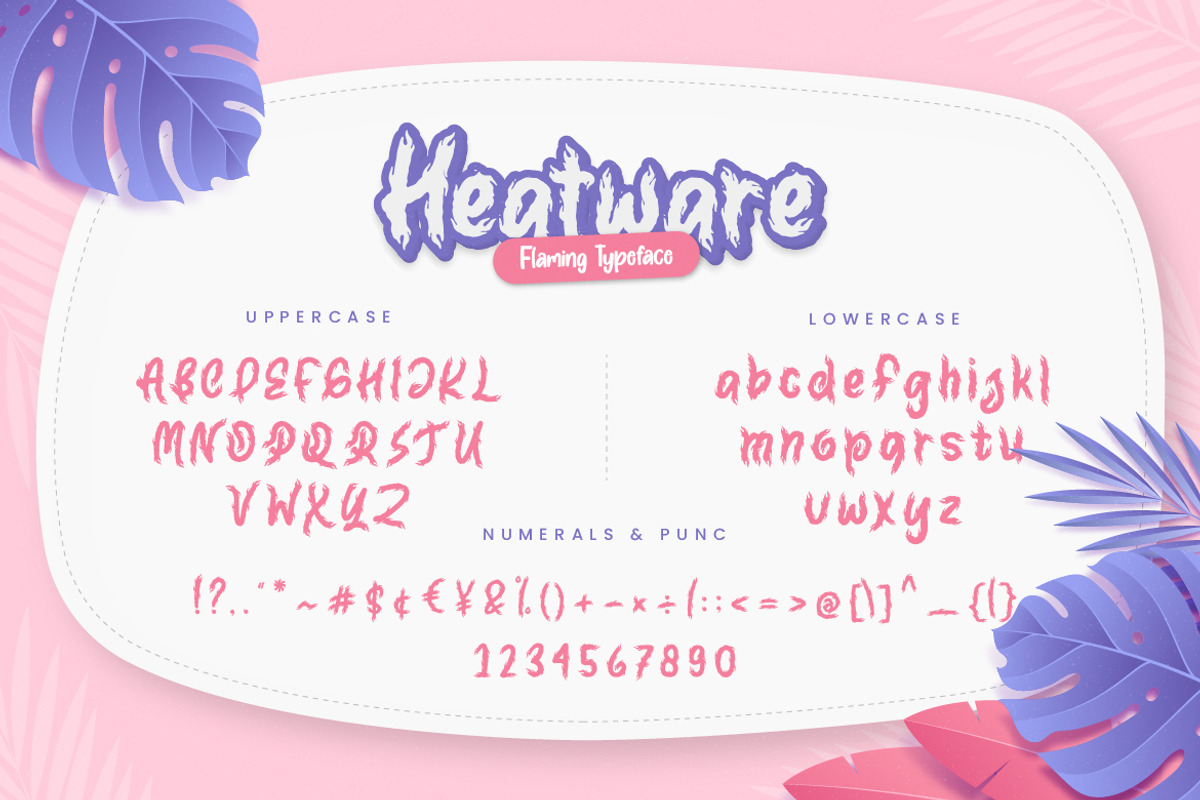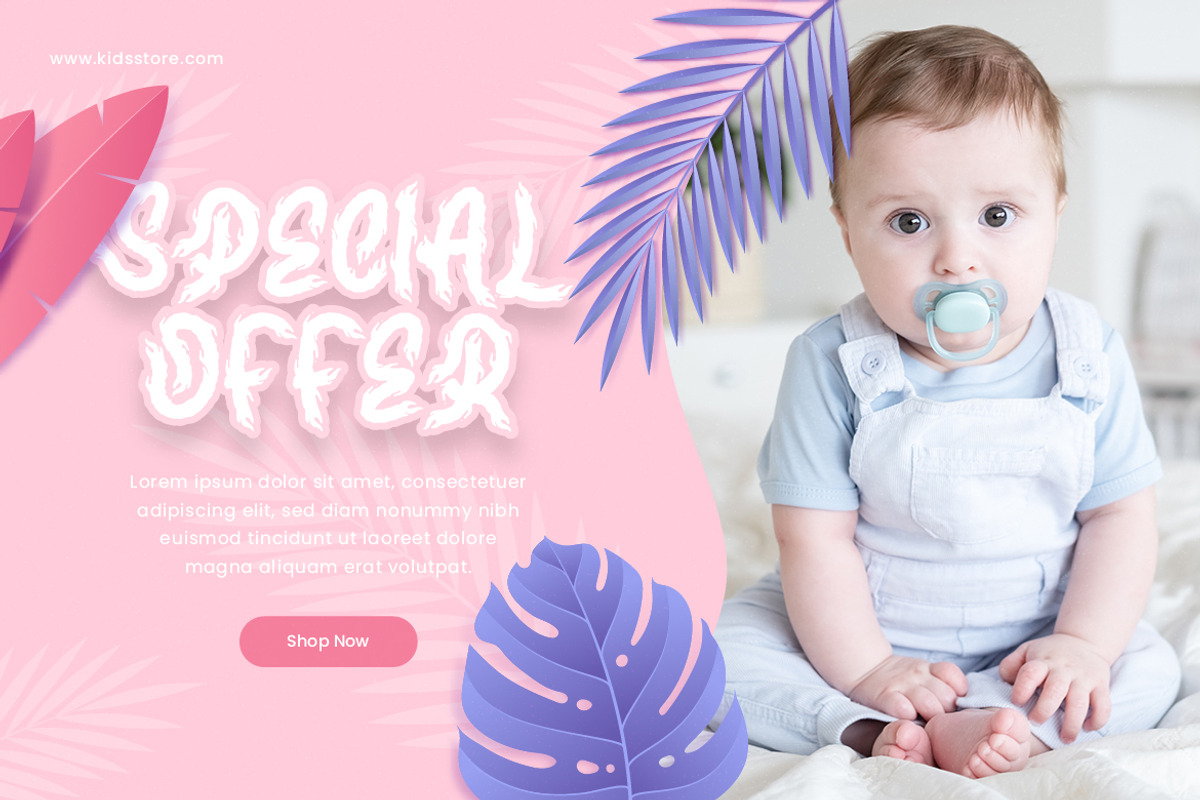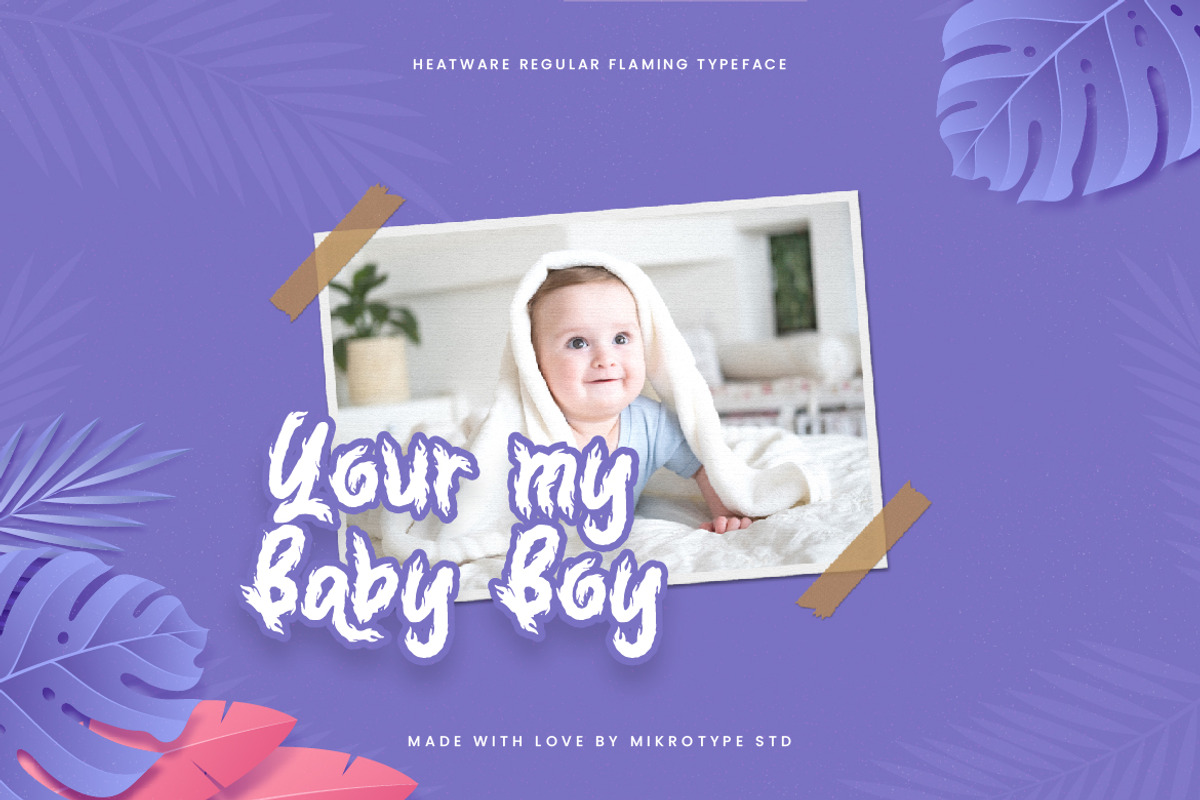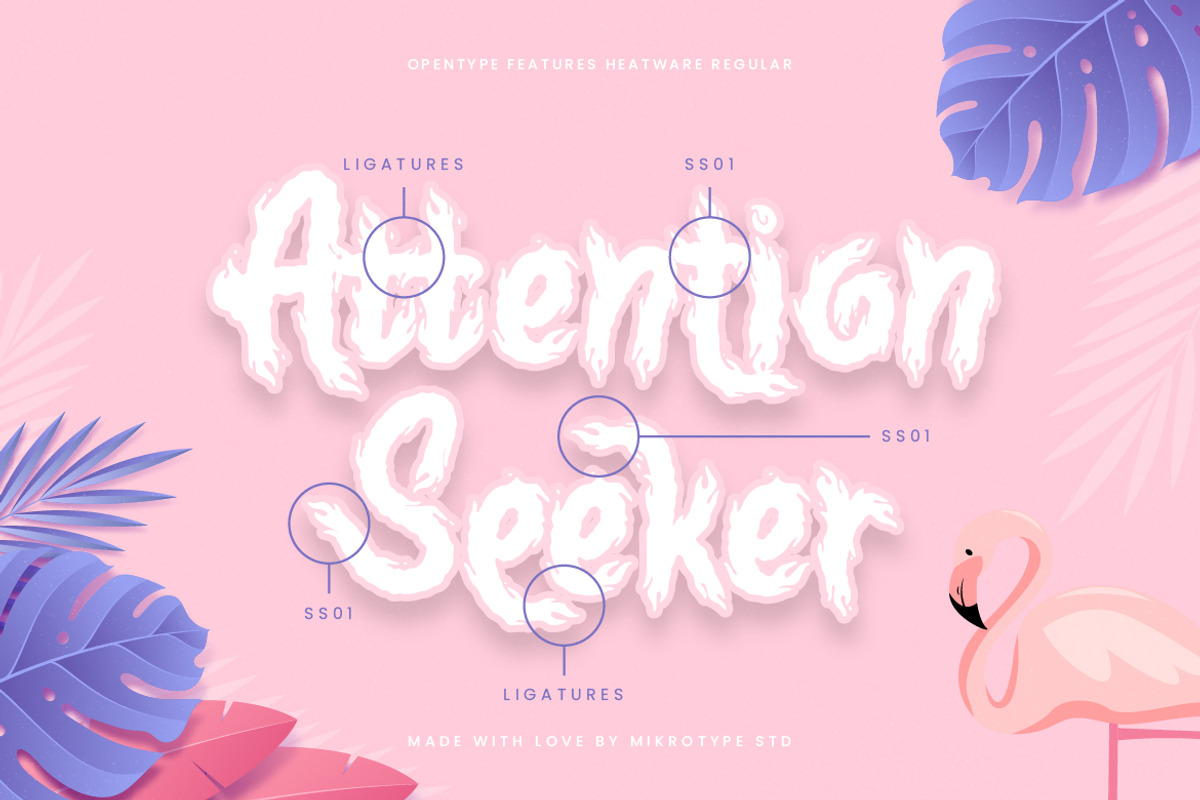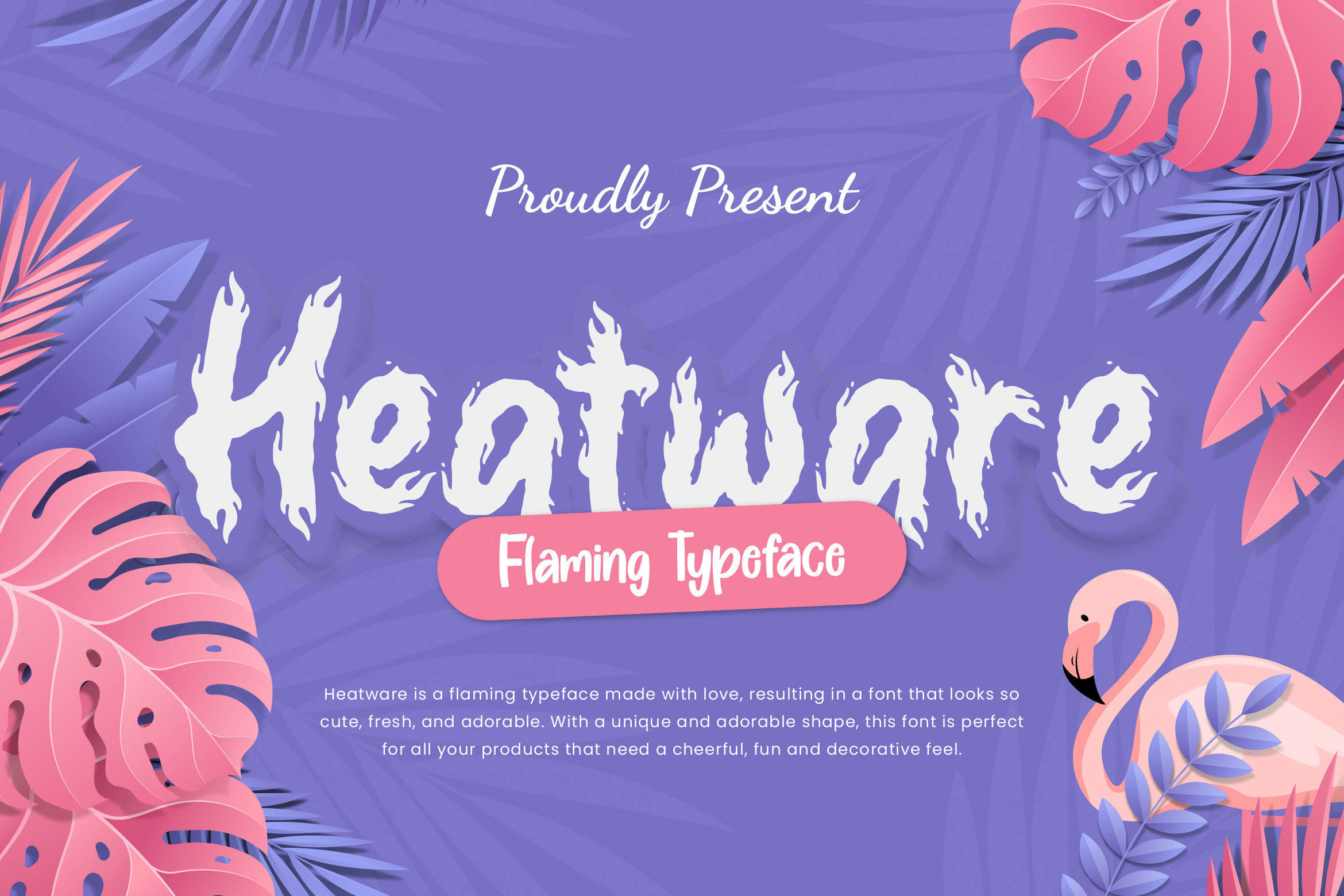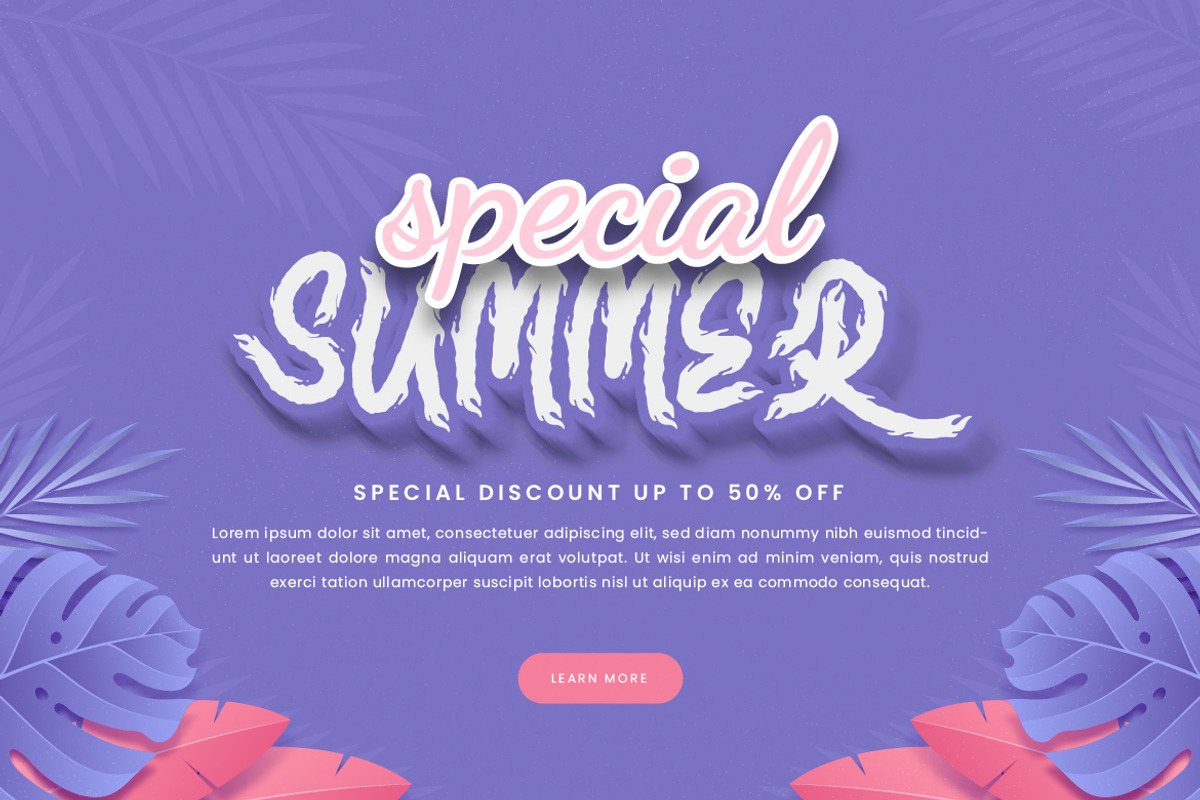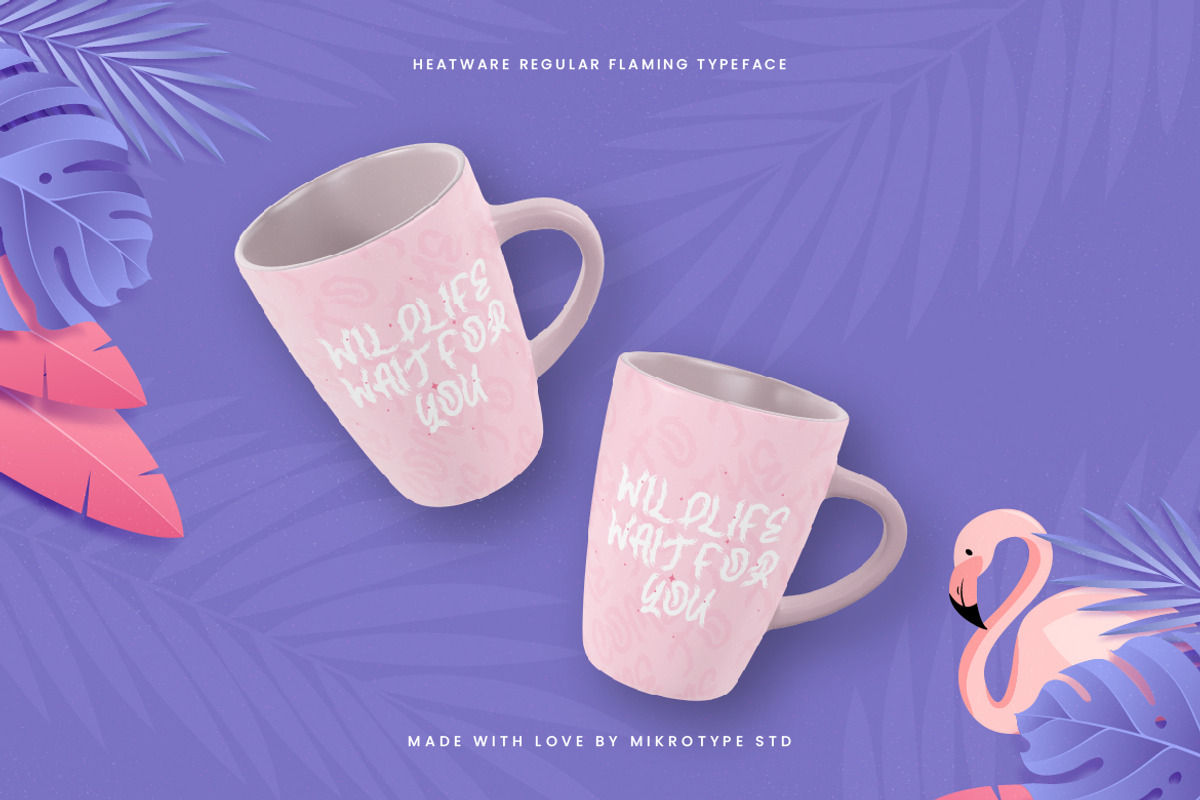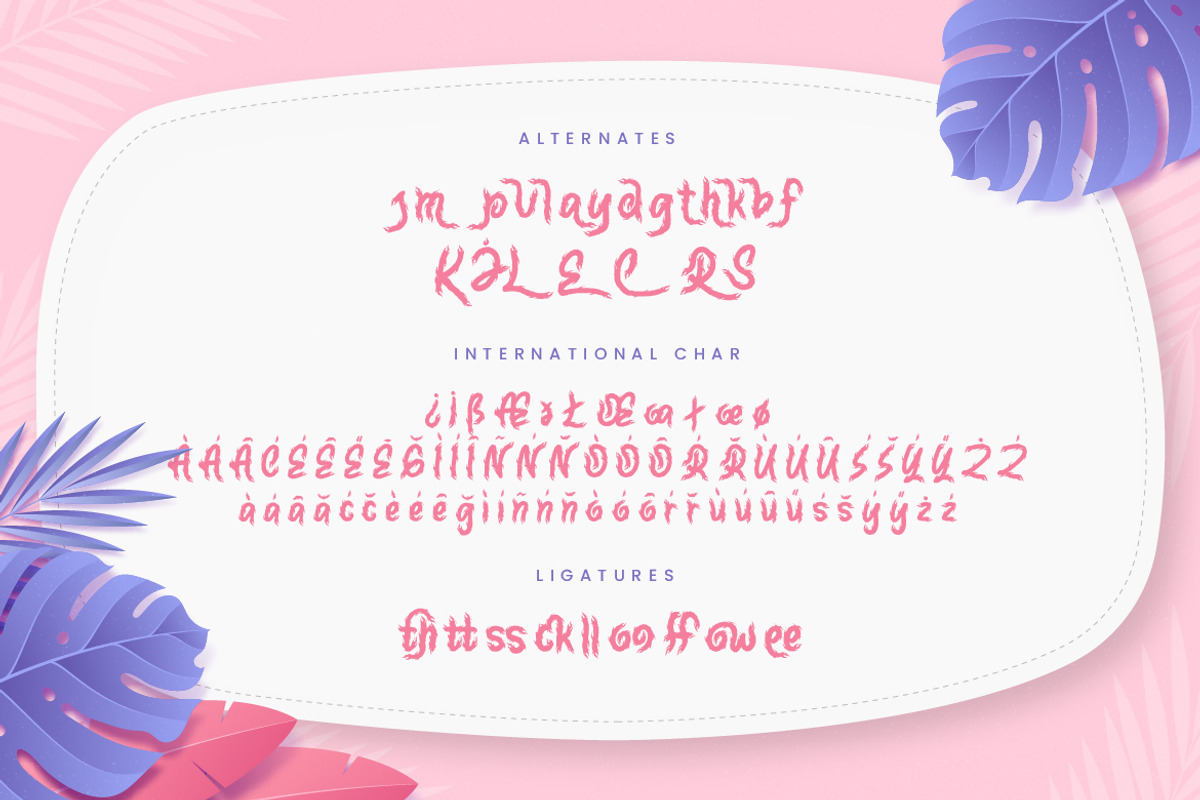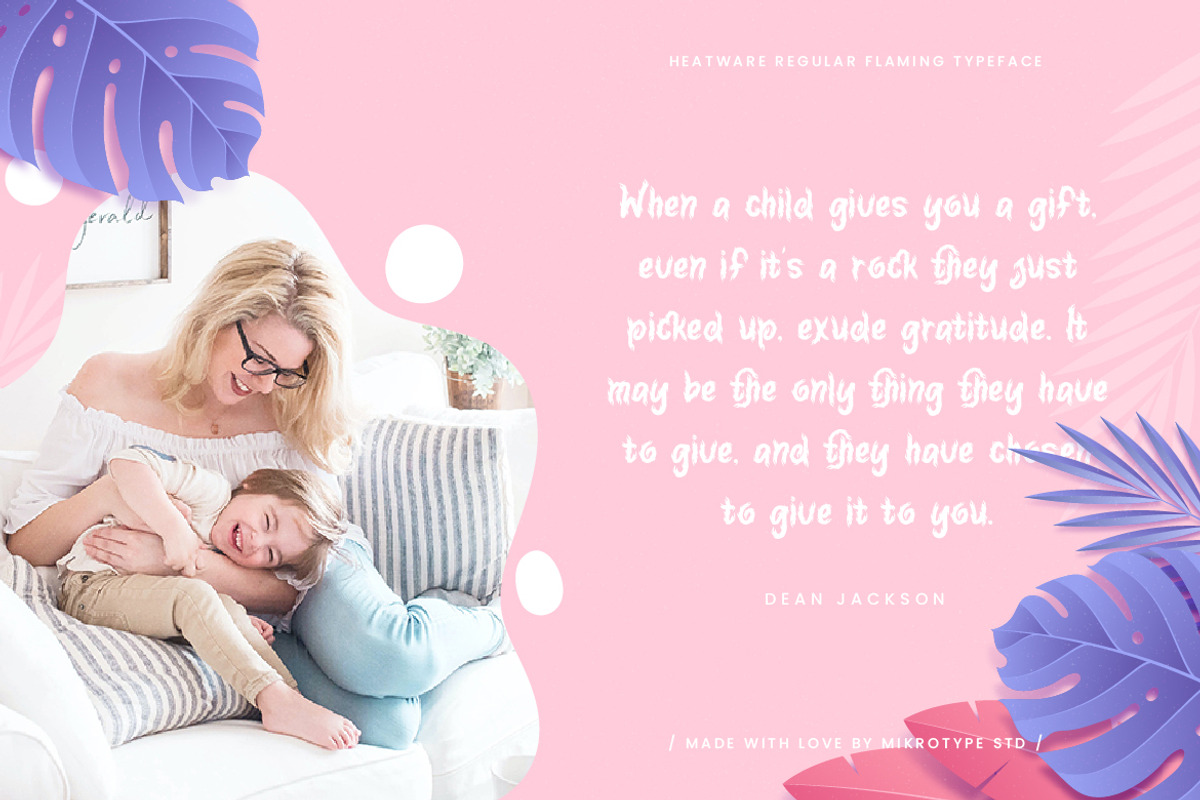
Heatware Flaming Advertisement Font
Introducing Heatware - A flaming typeface made with love, resulting in a font that looks so cute, fresh, and adorable. With a unique and adorable shape, this font is perfect for all your products that need a cheerful, fun and decorative feel. The font is perfect for for movie title, logo, blogging, brand identity, book title, social media, branding, wedding invites, cards or simply use it in your next design project and suitable to use for many occasion.
- Multilingual Characters support for;Afrikaans, Albanian, Czech, Danish, Dutch, English, Estonian, Finnish, French, Hungarian, Italian, Latvian, Lithuanian, Norwegian, Polish, Portugese, Slovak, Slovenian, Spanisch, Swedish, Turkish.